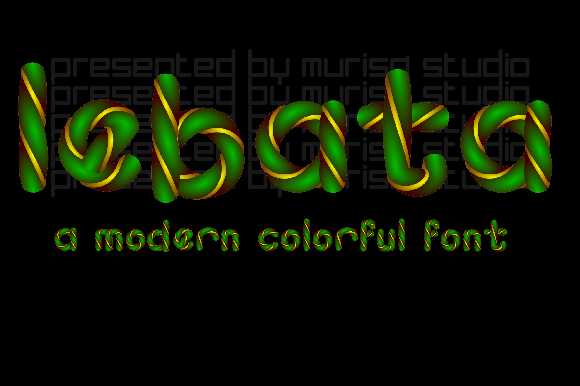
Journey into the realm of creativity with Lebata Font, a vibrant and captivating color font that bursts with personality. Embark on a voyage where your imagination takes center stage. Unleash your inner artist and transform your designs into masterpieces with this playful and authentic font, meticulously crafted by murisa.studio.
Lebata Font is not just a font, it's an expression of your unique style. It's the perfect companion for children's activities and school projects, bringing a touch of magic and wonder to every creation. Let your little ones' imaginations soar as they explore the boundless possibilities of this extraordinary font.
Dive into a symphony of colors that ignite your senses. Lebata Font's exquisite color palette dances across your screen, bringing life to your words and designs. From enchanting rainbows to tantalizing sunsets, the possibilities are endless. Create eye-catching posters that pop, design invitations that sparkle, and craft social media posts that sizzle with energy.
Take the plunge and embrace the Lebata Font experience today. Let your designs burst with color, vibrancy, and a touch of whimsy. Step into a world where creativity knows no limits, where your imagination is the only boundary. Make a statement with Lebata Font and watch your designs come alive!